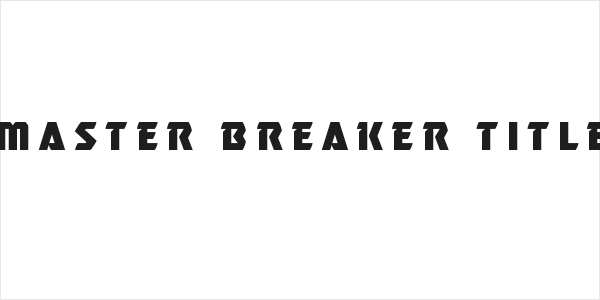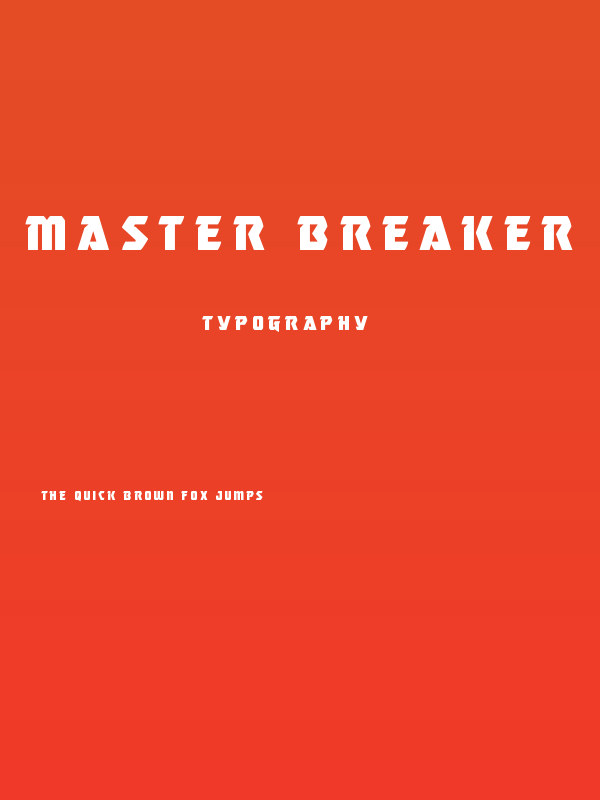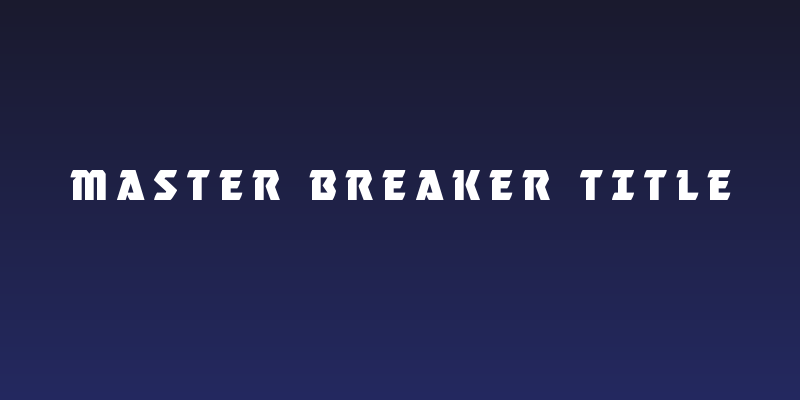
Master Breaker Title Font
Master Breaker Title Description
This font features a bold, geometric design with sharp angles and a strong presence. The characters are constructed with a blocky, futuristic style that conveys a sense of strength and modernity. Each letter and number is distinct, with consistent stroke thickness and angular cuts that add to its edgy appearance. The font's uppercase and lowercase letters maintain a uniform height, contributing to its cohesive look. The special characters are designed to match the overall aesthetic, ensuring a seamless integration in any text. Its boldness and unique style make it ideal for attention-grabbing headlines and titles.